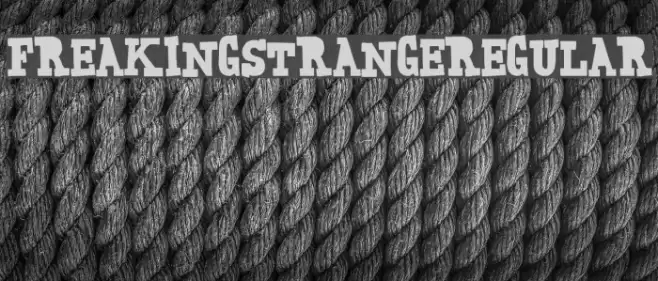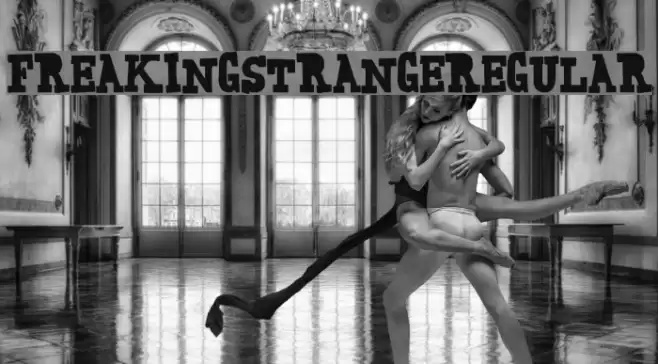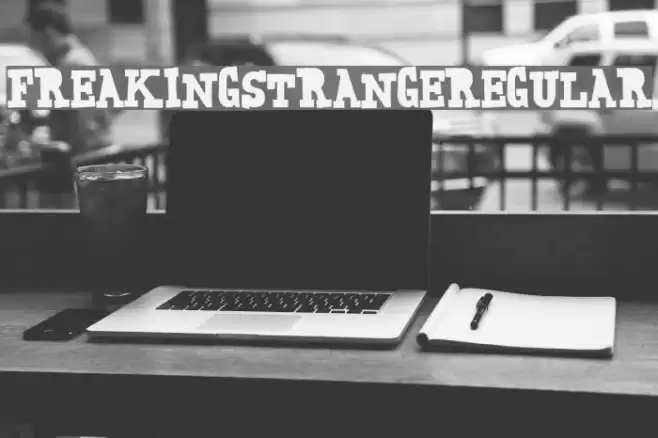
FreakingStrange-Regular Font
FreakingStrange-Regular Description
This font features a bold and quirky design with exaggerated serifs and varying stroke widths, giving it a playful and unconventional appearance. The uppercase letters are particularly distinctive, with some characters having unique shapes that deviate from traditional forms. The lowercase letters maintain the same whimsical style, while the numbers and special characters are equally bold and expressive. The overall design is eye-catching and ideal for projects that require a fun and creative touch.
A bold, quirky font with exaggerated serifs and playful character shapes from Uncategorized fonts.
- Proposed Projects: Ideal for posters, children's book covers, playful branding, and creative event invitations.